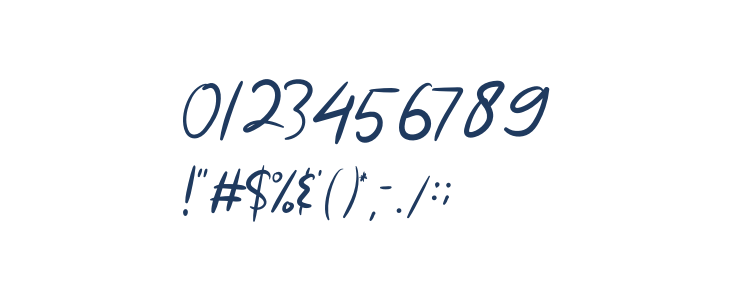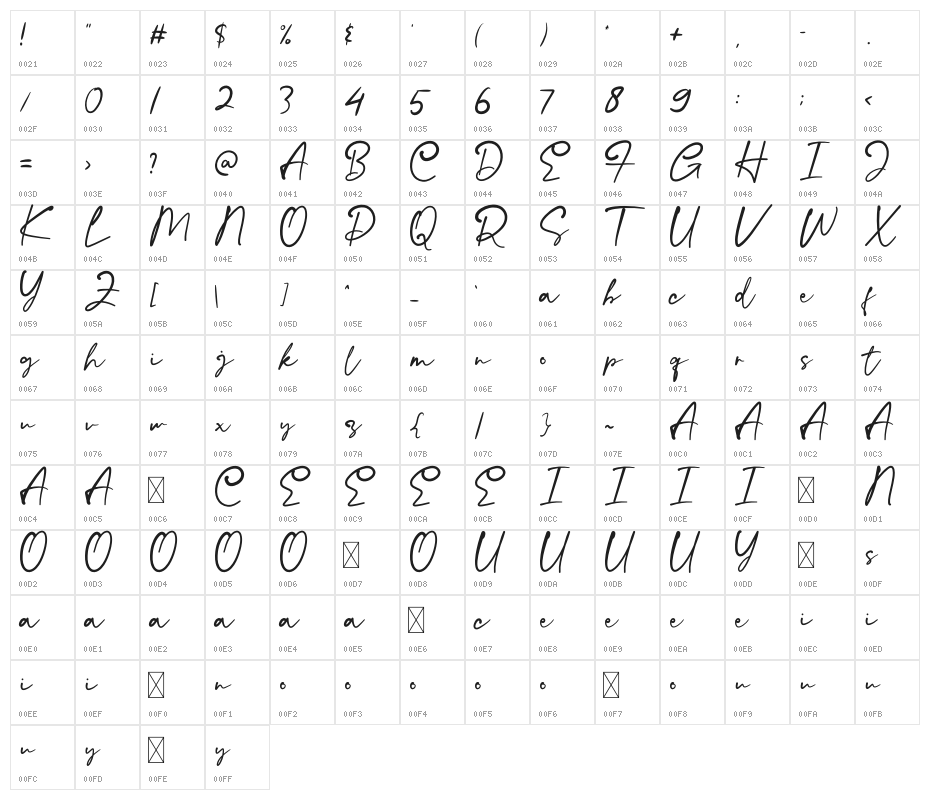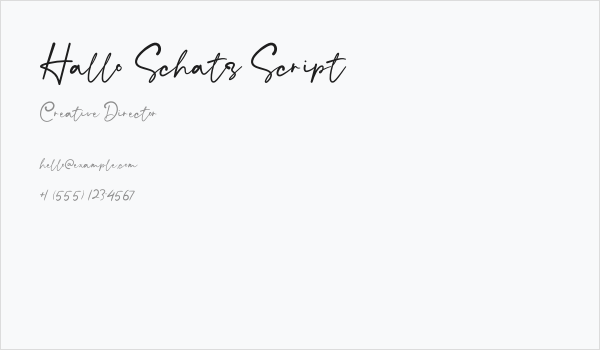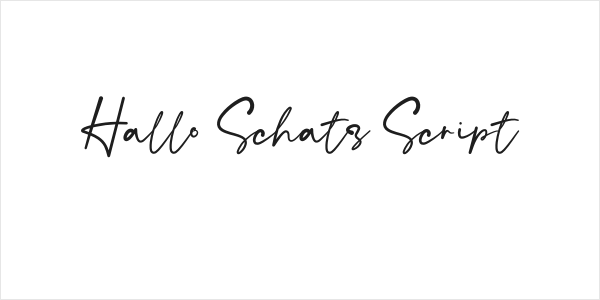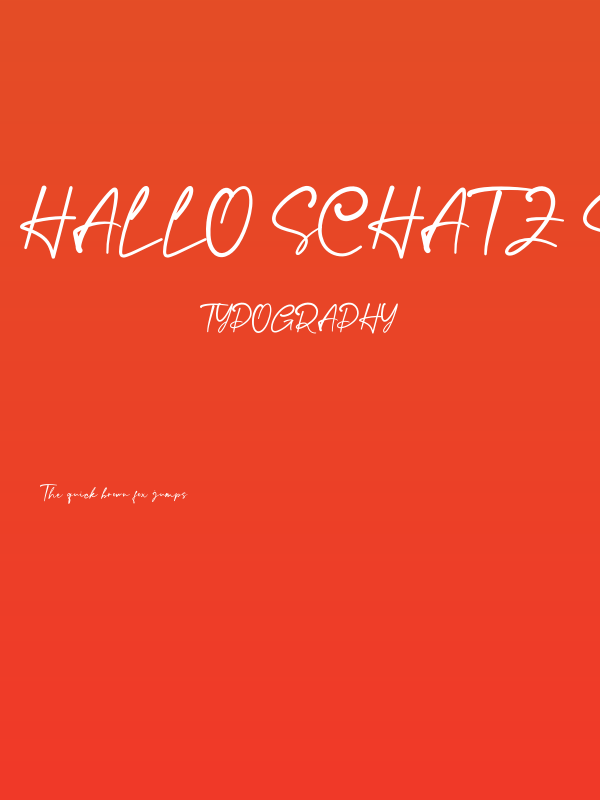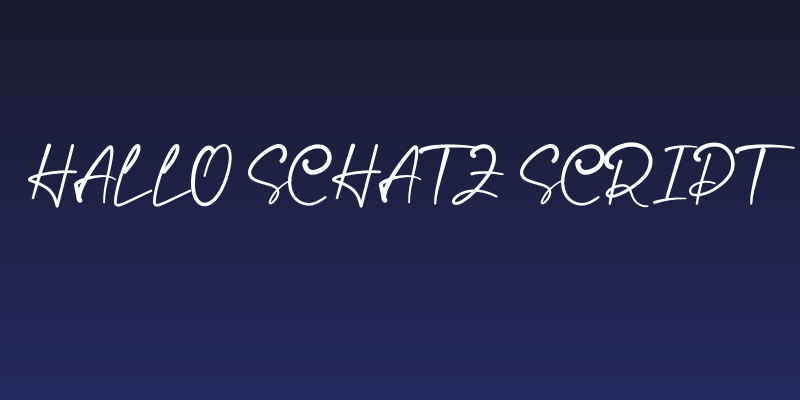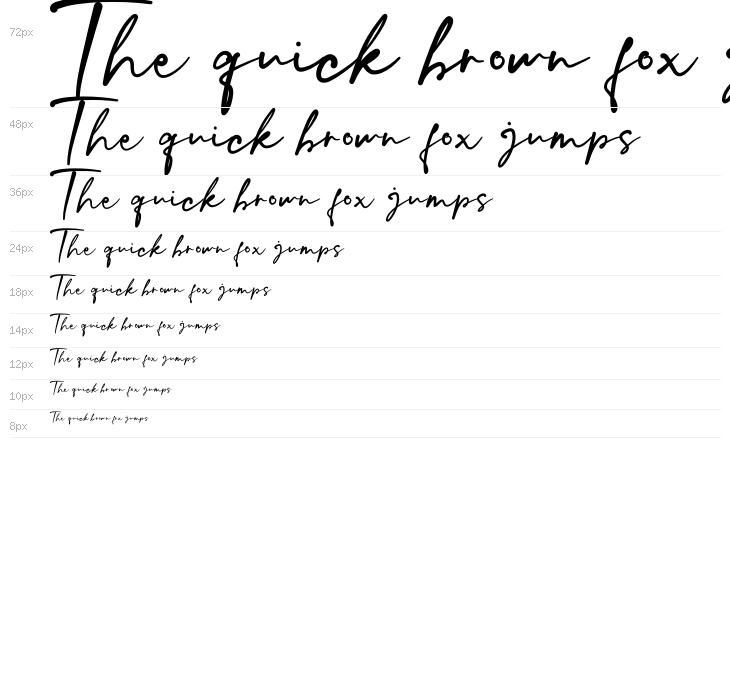
Hallo Schatz Script Font
Hallo Schatz Script Description
This script font exudes a charming and elegant handwritten style, characterized by fluid and connected strokes that mimic natural handwriting. The uppercase letters are slightly more formal, with graceful loops and curves, while the lowercase letters maintain a casual and flowing appearance. The numerals are consistent with the script style, offering a cohesive look across all characters. Special characters are thoughtfully designed to match the overall aesthetic, making this font versatile for various creative applications. The font's organic feel is perfect for adding a personal touch to any design project.
| Overall Style | Elegant, Handwritten |
| Use Case | Logos, Invitations, Personal Branding |
| Proposed Projects | Ideal for wedding invitations, greeting cards, personal branding, and creative projects requiring a personal touch. |